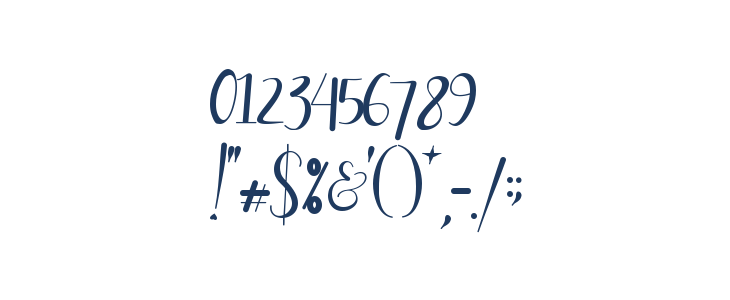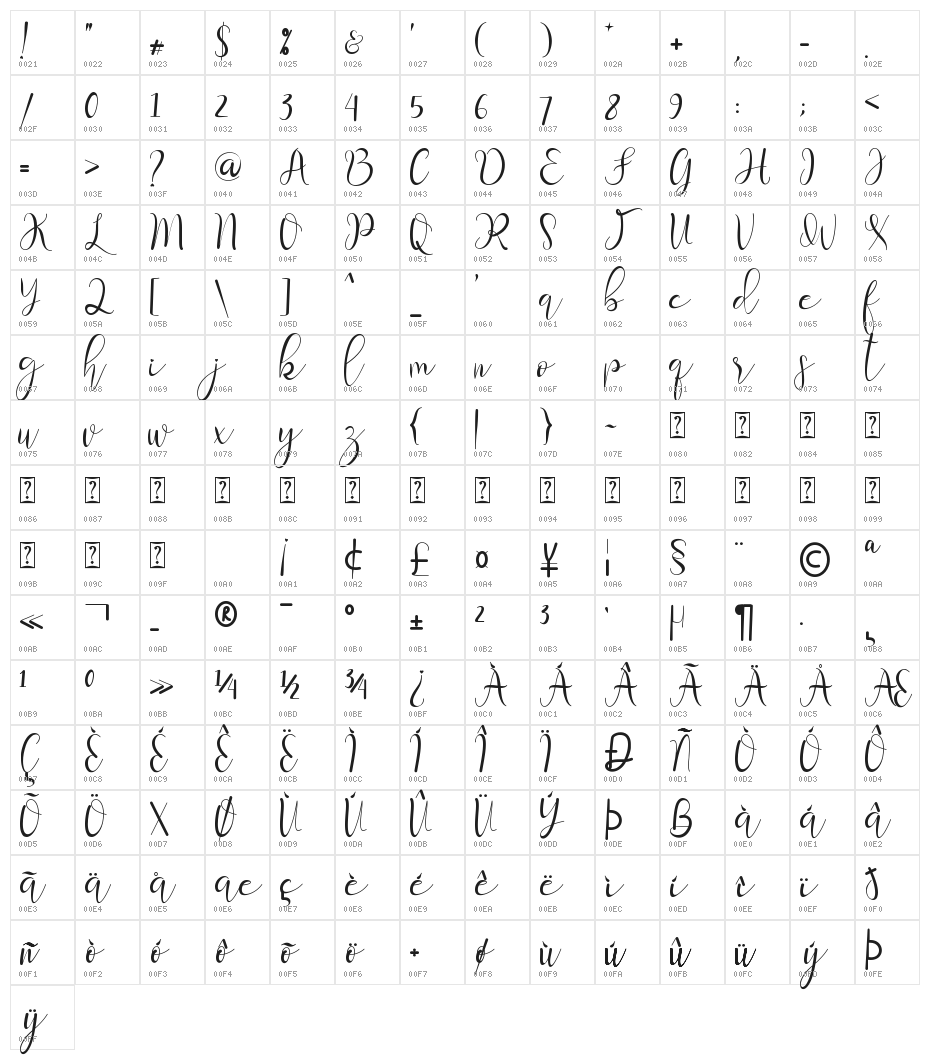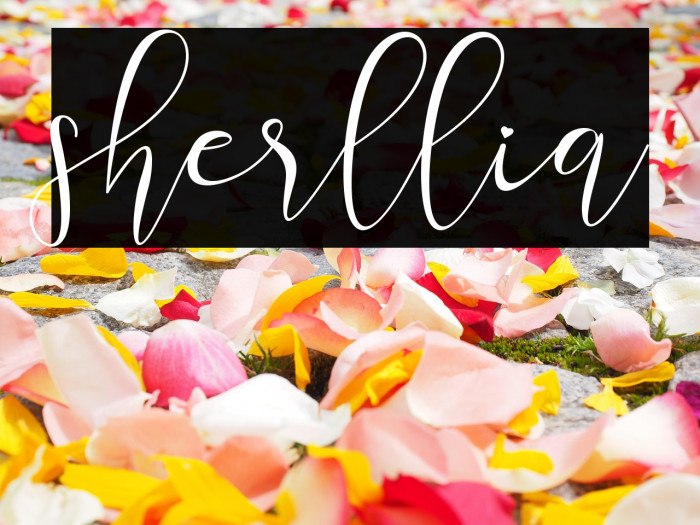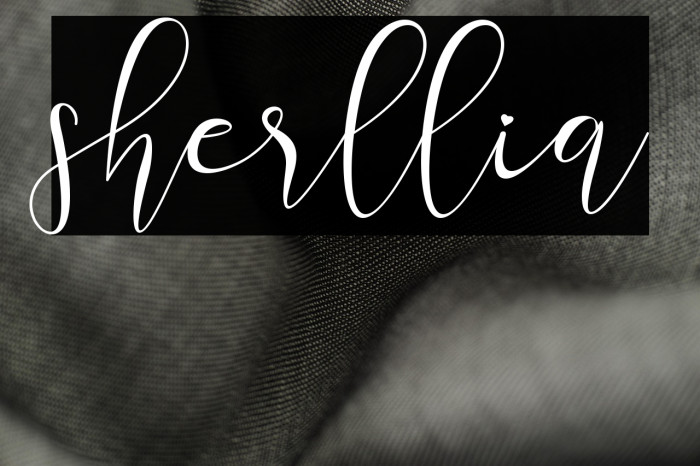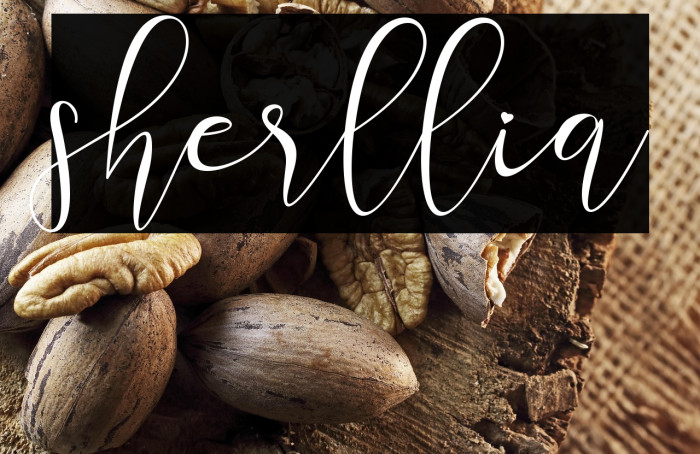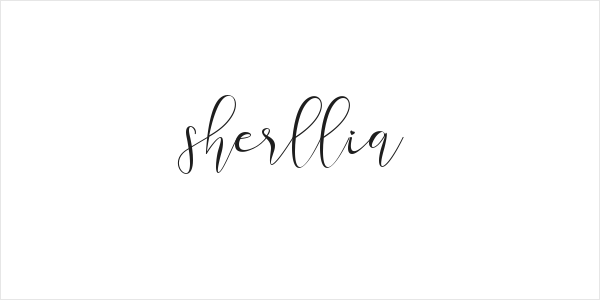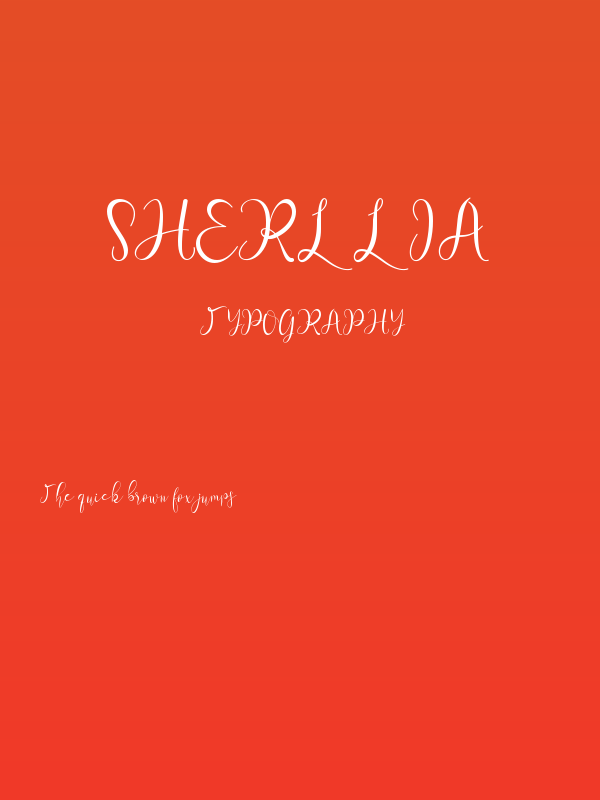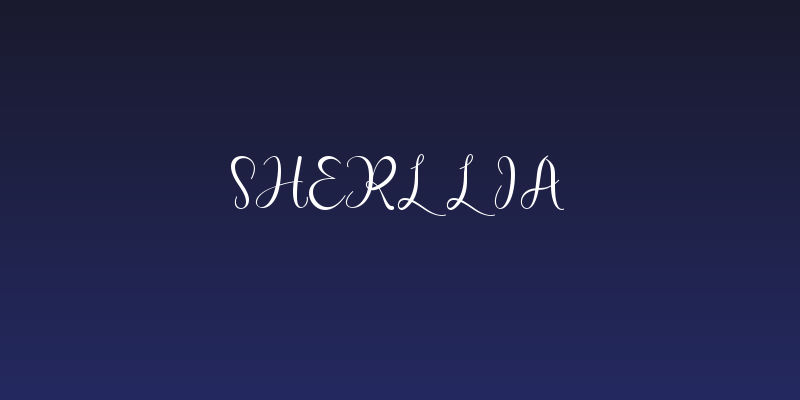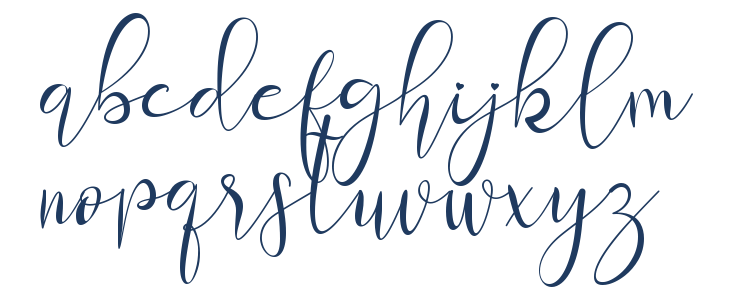
sherllia Font
sherllia Description
This font features a flowing, cursive style with elegant loops and swirls that give it a sophisticated and artistic appearance. The uppercase letters are bold and expressive, with a consistent slant that adds to the dynamic feel. The lowercase letters maintain the same fluidity, with some characters extending below the baseline, enhancing the graceful look. Numbers and special characters are designed with the same attention to detail, ensuring a cohesive and harmonious appearance throughout. The overall design is both decorative and readable, making it suitable for various creative applications.